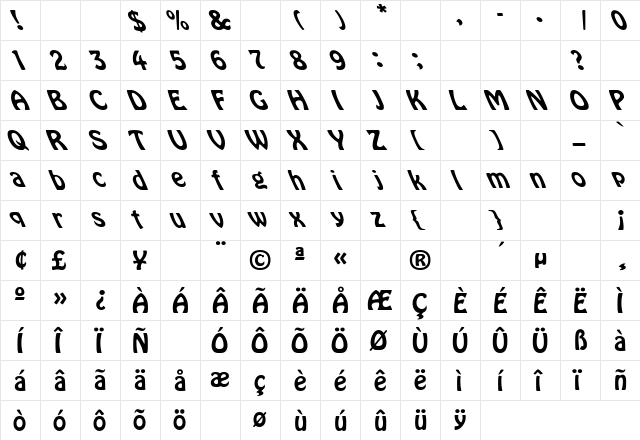
Hobo Leftified Regular
Design Context for Hobo Leftified Typeface
Hobo Leftified is a composed and adaptable typeface that performs quietly and consistently across a wide range of design contexts.
Pro Tip: Use Hobo Leftified in both headline and body roles to test its range before committing to a single application.